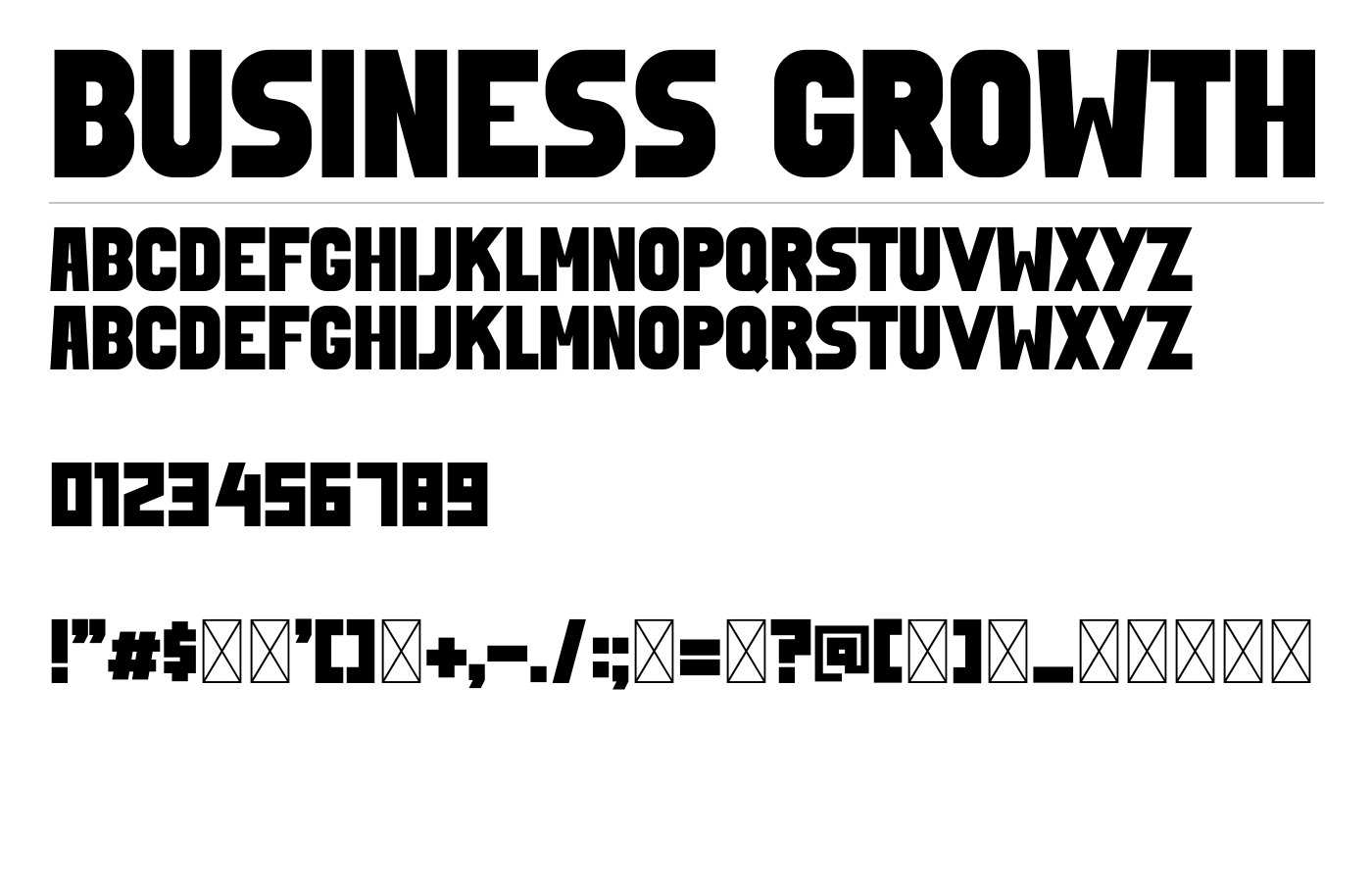
Business Growth is a bold, condensed sans serif font with strong geometric forms and a high x-height, giving it a solid and impactful presence. Its uniform stroke weight and sharp edges create a modern, powerful look that works great for headlines, logos, and branding where confidence and clarity are key. This font’s commanding style makes it ideal for business, sports, and industrial themes needing a straightforward yet striking visual impression.
Business Growth Font
About Business Growth Font
| Font family | Business Growth Font |
| Designer | designvector10 |